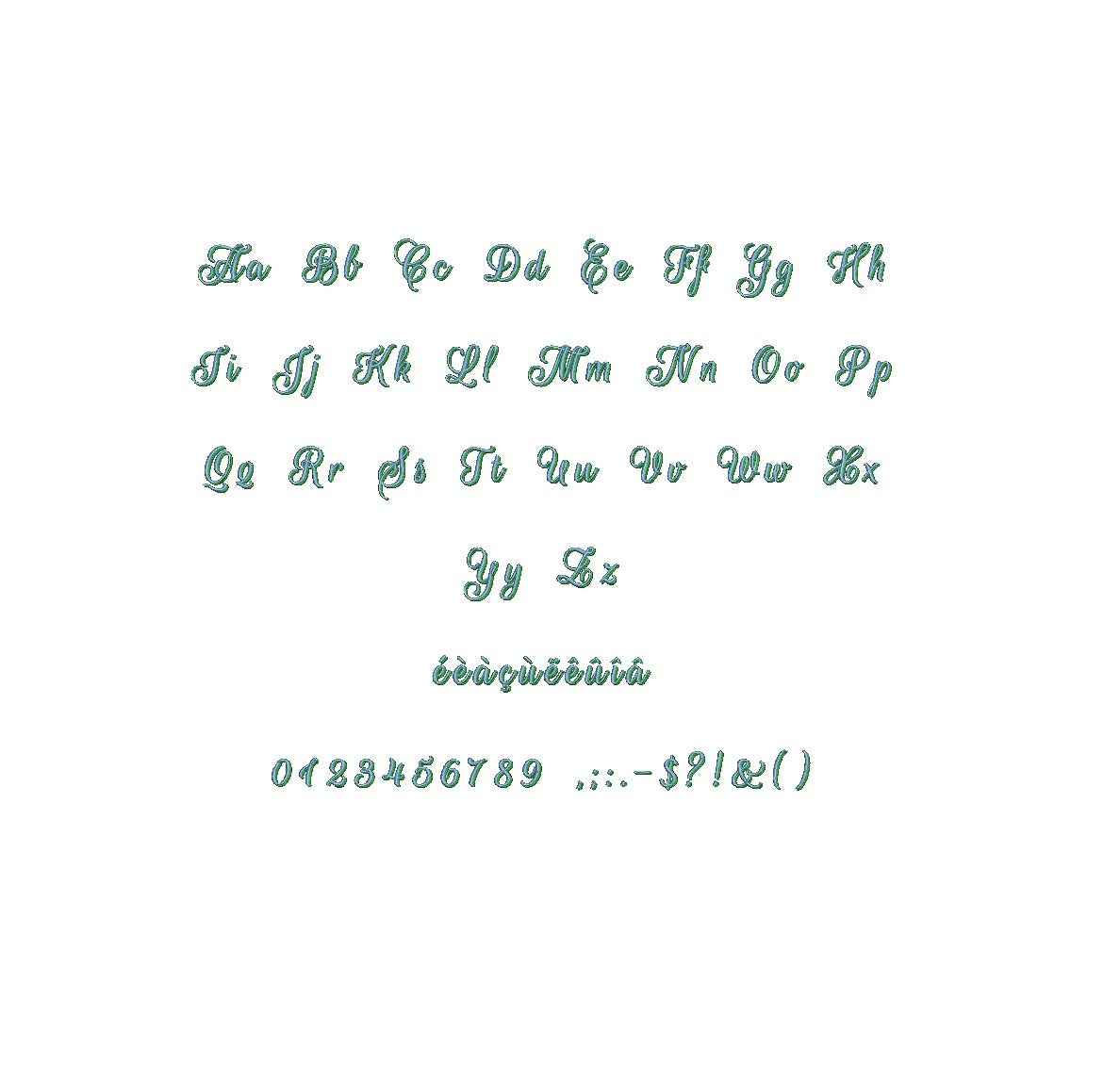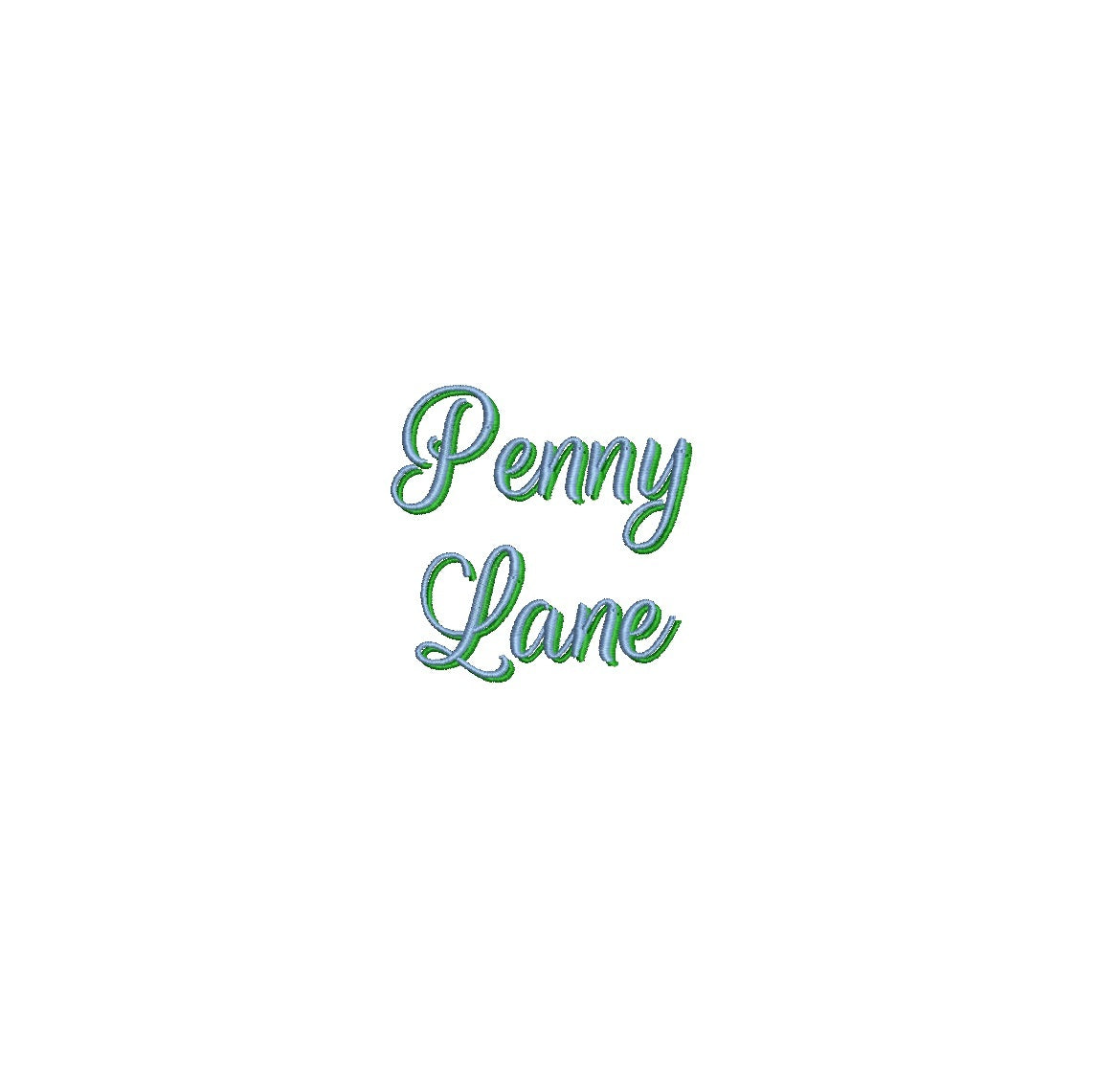
Elevate your embroidery projects with Penny Lane Shadow ESA font. Designed for Wilcom Studio e4.5.6 and Hatch 3 versions and beyond, this font seamlessly blends artistic flair and compatibility. Create captivating designs with its unique shadow effect, adding depth to your lettering. Perfect for various applications, from monograms to stylish text layouts. Unlock your creativity effortlessly, as Penny Lane Shadow ESA font provides a touch of sophistication to your embroidery. Enhance your artistry and make a statement with every stitch. Choose this font to craft stunning designs that leave a lasting impression.